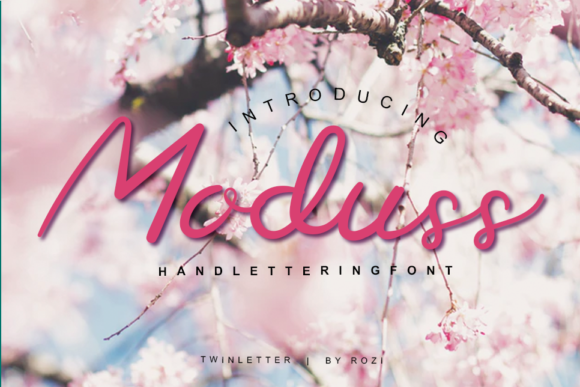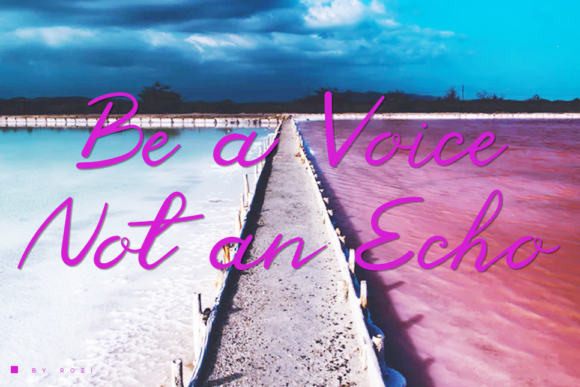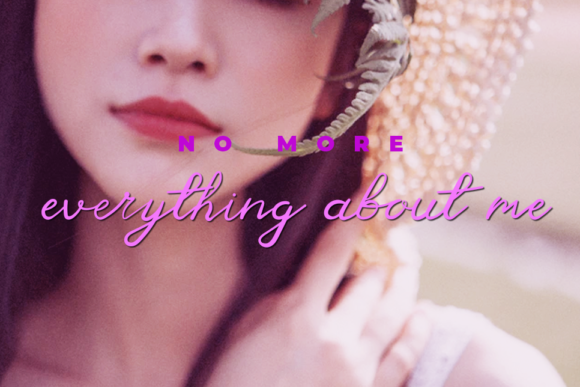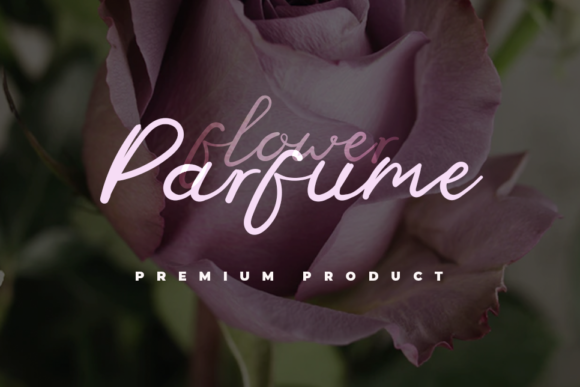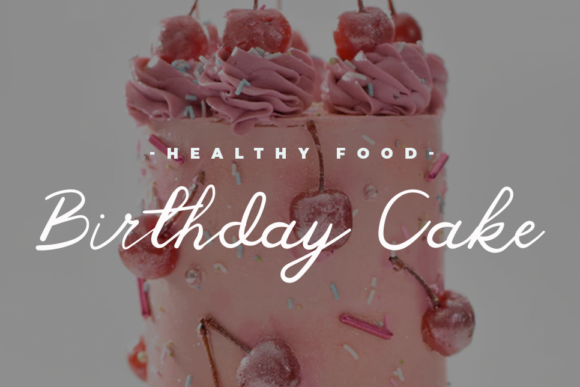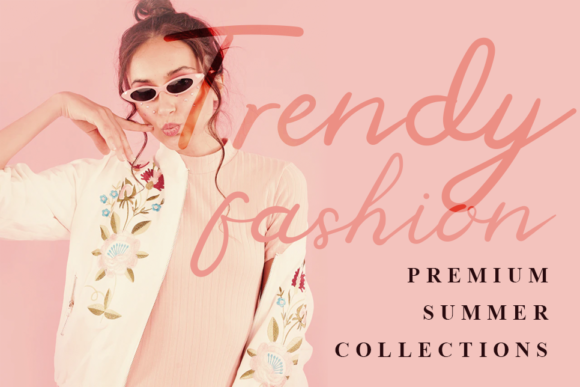
Introduction to Moduss Font Font
Fonts play a crucial role in design, and the Moduss Font font is a typeface that brings both character and versatility to any project. Whether you’re working on a branding project, a website, or a print design, the Moduss Font font offers a unique style that can elevate your work.
Moduss feels equally charming and elegant.
It features an incredibly classic style, while still keeping a friendly feel This handwritten font is the perfect font for making original and outstanding designs.
Key Features of Moduss Font Font
Why Choose Moduss Font Font?
The Moduss Font font is more than just a typeface – it’s a design tool that helps you communicate your message with style and clarity. Its unique character set and versatile design make it suitable for a wide range of applications, from elegant invitations to bold headlines.
With its carefully crafted letterforms and balanced proportions, the Moduss Font font ensures readability and visual appeal across all mediums.
What makes Moduss Font font special?
The Moduss Font font stands out with its unique design, exceptional readability, and versatility across various design applications.